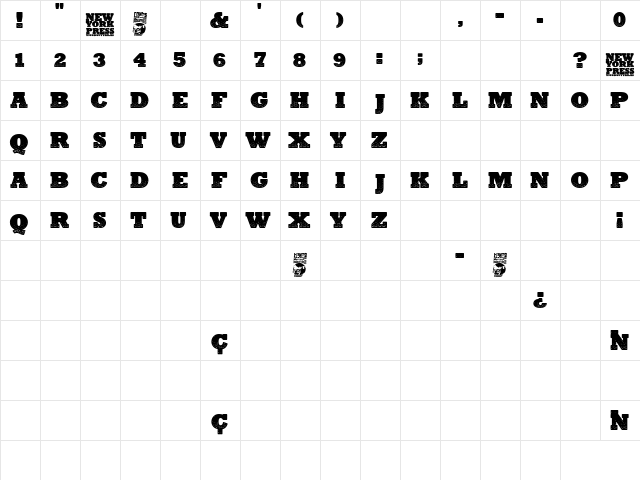
New York Press Regular
Design Context for New York Press Typeface
New York Press offers clean, dependable letterforms without strong stylistic allegiance, making it a practical choice for designers who need flexibility.
Pro Tip: Use New York Press in both headline and body roles to test its range before committing to a single application.